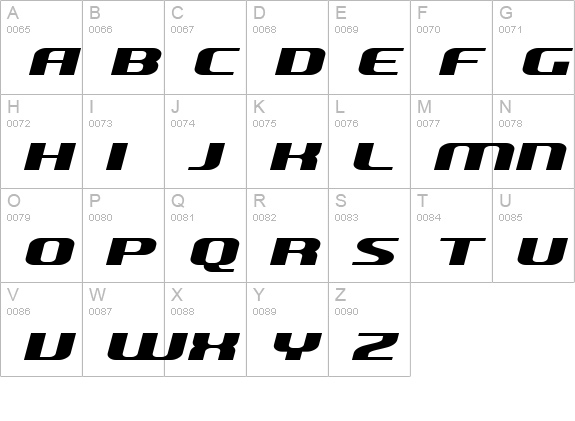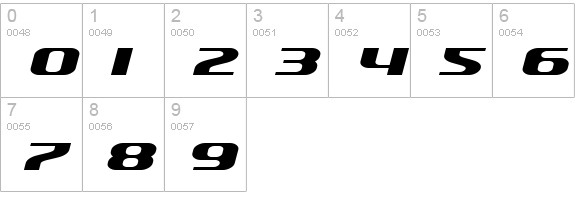
SF Quartzite Extended Italic Font Details
SF Quartzite Extended Italic is a distinctive, extended-width, italic variant in the SF typeface family \xE2\x80\x94 well suited to design and typography projects.
The SF Quartzite Extended Italic font is a stunning display of elegance and sophistication. Its elongated and slanted letterforms exude a sense of modernity and style, making it a perfect choice for any design project that requires a touch of refinement. With its sleek and smooth curves, SF Quartzite Extended Italic captures attention and adds a sense of grace to any text. Whether used for headlines, logos, or body text, this font effortlessly elevates the visual appeal of any design. One of the best parts about SF Quartzite Extended Italic is that it is available for free. Yes, you read that right. This stunning font can be freely downloaded at FontsMarket.com, allowing you to enhance your projects without breaking the bank. The versatility of SF Quartzite Extended Italic knows no bounds. Its extended and italicized nature creates a unique and dynamic visual impact, making it a fantastic choice for branding materials, advertisements, and editorial designs. This font seamlessly combines professionalism with a touch of creativity, resulting in a captivating typographic experience. SF Quartzite Extended Italic is designed with precision and care, ensuring that each letter maintains its legibility and readability even in smaller sizes. This makes it an excellent choice for both digital and print media, ensuring that your message is conveyed effectively across various platforms. So, if you are looking for a font that embodies elegance, sophistication, and modernity, look no further than SF Quartzite Extended Italic. And the best part? It can be yours for free. Don't miss out on this incredible opportunity to enhance your designs with a font that is as stylish as it is accessible. Head over to FontsMarket.com and download SF Quartzite Extended Italic today.